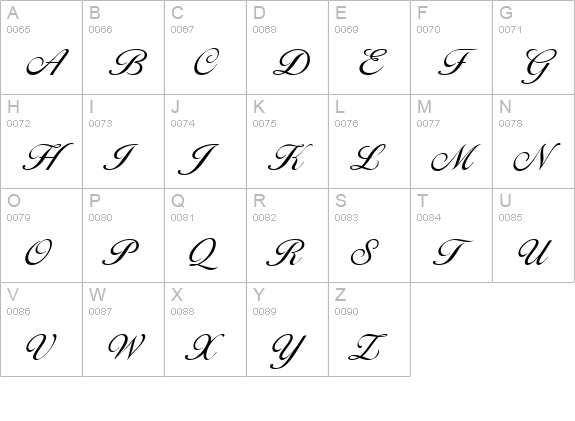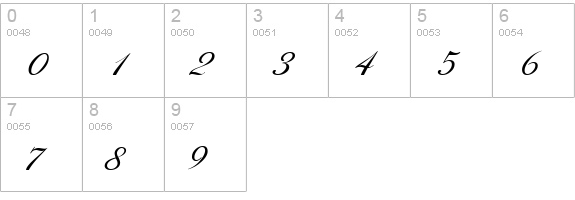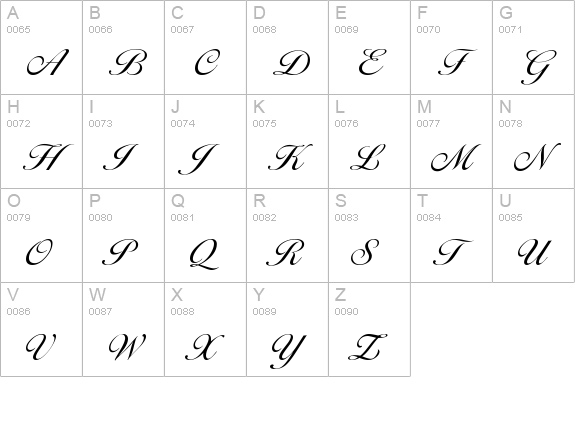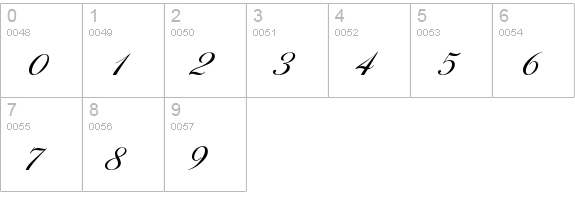
LarissaLight Regular is the standard, neutral variant in the LarissaLight typeface family \xE2\x80\x94 well suited to general body text, paragraphs, and standard typographic work.
LarissaLight Regular font is a stunning display font that exudes elegance and sophistication. With its sleek and slender letterforms, this font is perfect for adding a touch of class to any design project. This font features a harmonious balance of thin and thick strokes, creating a visually pleasing aesthetic that captures attention effortlessly. LarissaLight Regular font is versatile and can be used for a variety of purposes, including logos, headers, posters, and more. One of the best things about LarissaLight Regular font is that it is available for free download at FontsMarket.com. This means that you can easily access this font and use it in your projects without any cost. Whether you are a professional designer or a hobbyist, having access to high-quality fonts like LarissaLight Regular font can greatly enhance your creative endeavors. The clean and modern design of LarissaLight Regular font makes it highly legible, ensuring that your message is conveyed with clarity and impact. Its delicate curves and graceful lines add a touch of sophistication to any text, making it an excellent choice for branding materials, invitations, and other elegant designs. So why wait? Go ahead and download LarissaLight Regular font for free at FontsMarket.com and add a touch of elegance to your next design project. With its timeless beauty and free availability, LarissaLight Regular font is a must-have in every designer's toolkit.